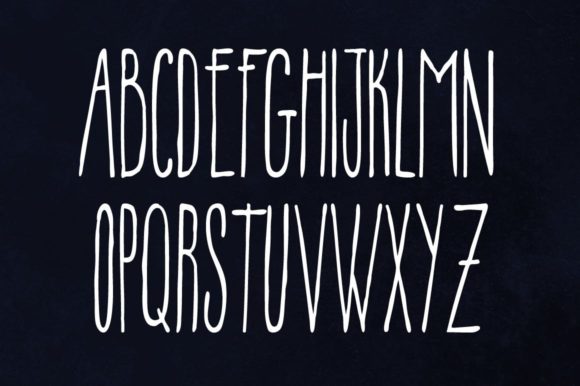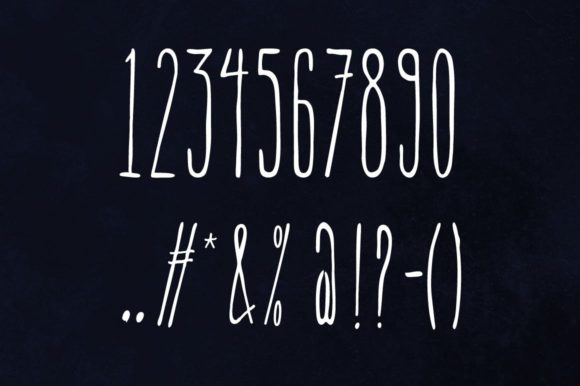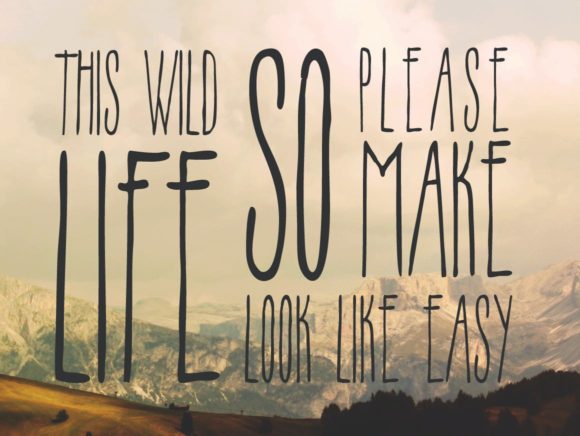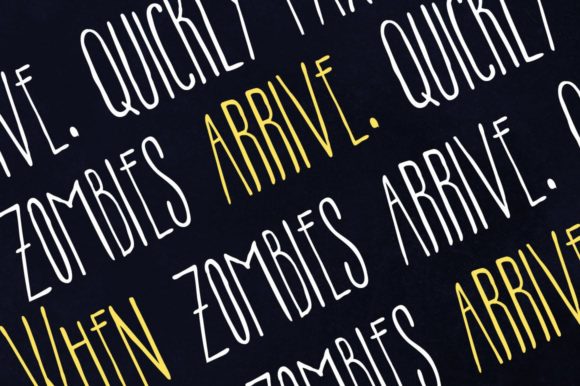
Discover the Elegance of Flush Font: A Thin and Tall Handwritten Marvel
Are you on the hunt for a font that exudes elegance, sophistication, and versatility? Look no further than the Flush Font, a stunning thin and tall handwritten font that is sure to capture your heart. With its incredibly versatile style, Flush Font is the perfect addition to any design project, from crafting and lettering to digital art and graphic design.
The Characteristics of Flush Font
Flush Font boasts a unique combination of characteristics that set it apart from other fonts. Its thin and tall letterforms give it a sleek and refined appearance, perfect for creating designs that require a touch of sophistication. The font’s handwritten nature adds a personal and organic feel, making it ideal for projects that require a more human touch.
The Versatility of Flush Font
One of the standout features of Flush Font is its incredible versatility. Whether you’re creating a wedding invitation, a craft project, or a digital artwork, Flush Font adapts seamlessly to any design style. Its delicate and refined appearance makes it perfect for:
- Wedding and event invitations
- Digital art and graphic design
- Lettering and calligraphy
- Packaging and branding
Why Designers and Crafters Love Flush Font
Designers and crafters alike are drawn to Flush Font for its unique combination of style and versatility. Here are just a few reasons why:
- Elegant and sophisticated: Flush Font adds a touch of elegance and sophistication to any design project.
- Easy to read: Despite its thin and tall letterforms, Flush Font is surprisingly easy to read, making it perfect for body text and headlines.
- Highly customizable: With its handwritten nature, Flush Font can be easily customized to fit your unique design style.
- Perfect for pairing: Flush Font pairs beautifully with other fonts, making it easy to create stunning font combinations.
Tips for Using Flush Font in Your Designs
To get the most out of Flush Font, here are a few tips to keep in mind:
- Use it sparingly: Due to its delicate nature, Flush Font works best when used sparingly. Use it for headlines, titles, or special text elements.
- Experiment with colors: Flush Font looks stunning in a variety of colors, from soft pastels to rich jewel tones. Experiment with different colors to find the perfect fit for your design.
- Pair it with bold fonts: For maximum impact, pair Flush Font with bold, contrasting fonts. This creates a beautiful visual contrast that adds depth and interest to your design.
In conclusion, Flush Font is a stunning thin and tall handwritten font that is sure to capture your heart. With its incredibly versatile style, elegant and sophisticated appearance, and ease of use, Flush Font is the perfect addition to any design project. Whether you’re a designer, crafter, or DIY enthusiast, Flush Font is a must-have font that will take your designs to the next level.